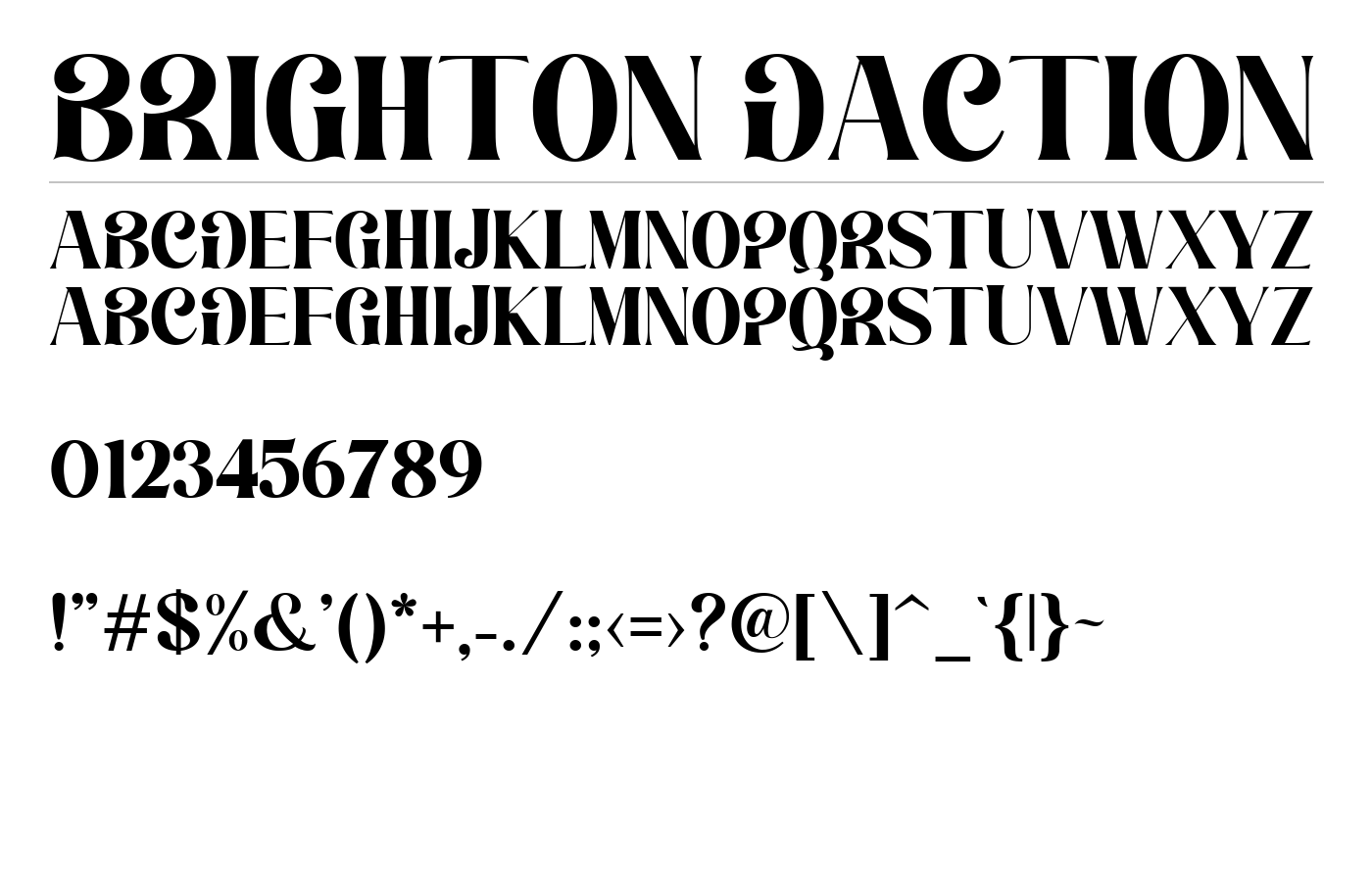
Brighton Daction is a striking serif display font characterized by its bold weight, high contrast between thick and thin strokes, and elegant, sharp serifs that evoke a modern yet vintage flair. Its uppercase-only design features unique and artistic letterforms with playful curves and strong geometric influences, making it ideal for eye-catching headlines, logos, and branding that seek to convey sophistication and creativity. This font works beautifully in fashion, luxury, and editorial contexts where style and personality are paramount.
Brighton Daction Font
About Brighton Daction Font